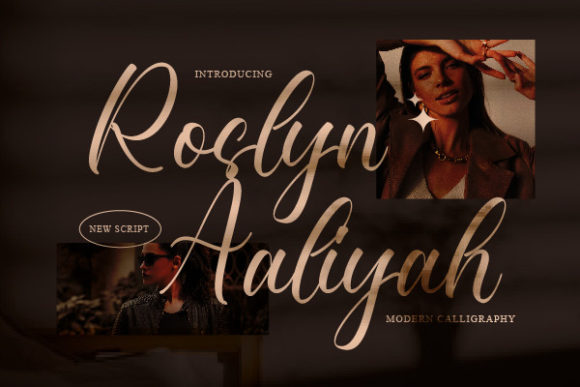
Prepare to be mesmerized by Roslyn Aaliyah, the enchanting handwritten font that will ignite your creativity and captivate your audience. With its graceful strokes and captivating curves, this script font exudes a timeless elegance that will elevate your designs to new heights.
Immerse yourself in the world of Roslyn Aaliyah, where every letter dances across the page with a touch of romance and sophistication. Its versatility knows no bounds, making it the perfect choice for a multitude of projects, from heartfelt greeting cards to bold headlines that demand attention.
Whether you're crafting an intimate invitation or designing a website that sparks desire, Roslyn Aaliyah has the power to transform your words into works of art. Its delicate charm will add a touch of whimsy to your branding, while its readability ensures that your message will be conveyed with crystal-clear precision.
Experience the magic of Roslyn Aaliyah today and let your imagination soar. Its timeless beauty and versatility will become an indispensable tool in your creative arsenal, helping you to connect with your audience on a deeper level. Embrace the allure of Roslyn Aaliyah and watch as your designs blossom into masterpieces that inspire and enchant.